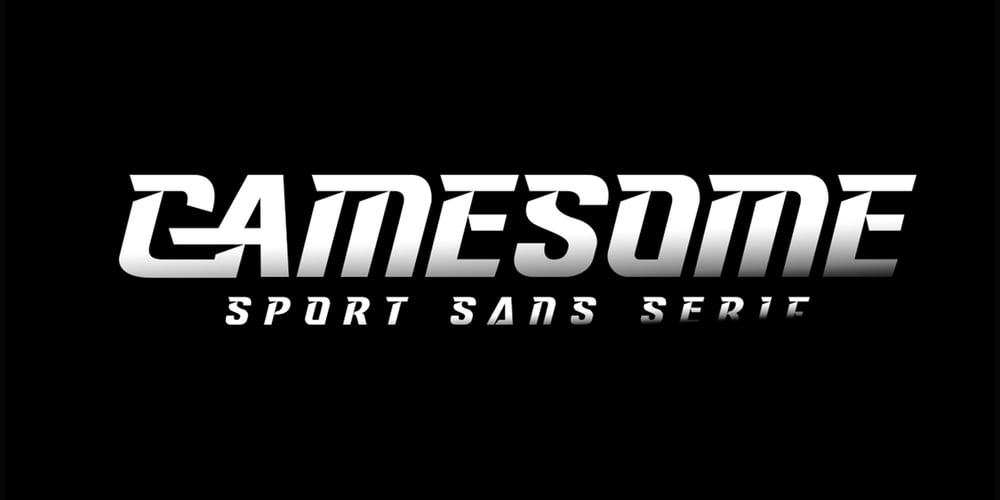
Gamesome Font Family was designed by Muhammad Afif Ersya and published by Mevstory Studio. Gamesome contains 2 styles and family package options. Gamesome is SPORTY, FUTURISTIC, and SHARP font. It will make your design looks sporty and also futuristic design.Gamesome Really fit for retro, futuristic, automotive, and gaming themed designs. Just look how it performs on the preview that I have provided, you will see its capabilities. But it will also work well with other themes.I can’t wait to see what you guys will come up with with using this font!